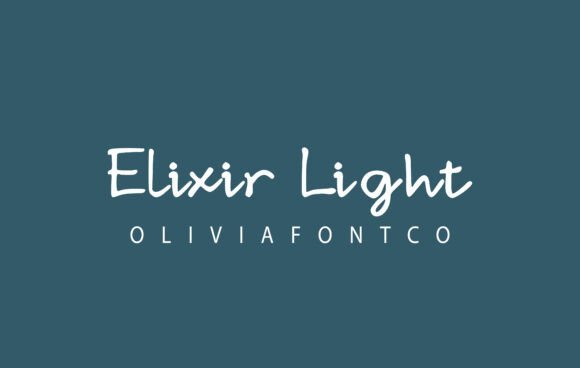
The Perfect Brushstroke: Unlocking Creativity with Elixir Light Font
Have you ever been brainstorming a new project and suddenly a spark of inspiration strikes, and you know exactly the font to bring your vision to life? For many designers, that moment is the key to unlocking a truly exceptional design. And for those who crave that perfect handwritten touch, Elixir Light Font is about to become your new best friend.
This authentic handwritten font is expertly designed to add a romantic touch to your creative endeavors. Whether you’re crafting magazine headlines, social media posts, or branding materials, Elixir Light Font is the perfect choice. Its legibility and versatility make it a valuable asset for designers who want to elevate their work and connect with their audience on a deeper level.
Elixir Light Font Key Features
- Unique Characteristics: Elixir Light Font features a modern, elegant design with a unique blend of geometric and organic elements, making it perfect for creating visually appealing and sophisticated designs.
- Font Style: The font is designed in a light style, ideal for creating clean, minimalist, and modern designs, while still maintaining a level of sophistication and elegance.
- Scalability: The font is designed to be highly scalable, ensuring that it looks great in various sizes, from small text to large headings, without losing its clarity and legibility.
Elixir Light Font Review
Overall, I found “Elixir Light” to be a beautiful, elegant font with a lot of potential. ✨ Here are some of its strengths:
- Soft, delicate lines that add a touch of sophistication to any design
- Excellent for use in logo design, packaging, and other applications where a light, airy feel is desired
- Works well in digital and print media, making it a versatile choice for designers
However, I did encounter some limitations that may impact its usability. ⚠️ These include:
- Lack of bold weight options, which may make it difficult to use for titles or headings that need more emphasis
- May not be as readable at very small sizes, requiring designers to be mindful of font sizes and scaling
- Not as widely supported as some other fonts, which could lead to compatibility issues in certain situations
Overall, I would recommend “Elixir Light” to designers looking for a beautiful, elegant font for specific applications. While it may not be the best choice for every project, its strengths make it a valuable addition to any design library.
Elixir Light Font is ideal for:
- Editorial and publishing designs
- Event and party invitations
Alternatives to Elixir Light Font
Lato Light Font
Lato Light Font is a clean and modern sans-serif font. It is ideal for use in headings, titles, and body text where a light and airy feel is desired. Lato Light Font is more condensed than Elixir Light Font, making it suitable for shorter paragraphs and titles. It also has a slightly more rounded feel, giving it a softer appearance.
Montserrat Light Font
Montserrat Light Font is a geometric sans-serif font that is perfect for use in modern and minimalist designs. It has a more angular feel than Elixir Light Font, making it suitable for use in titles and headings where a bold and edgy feel is desired. Montserrat Light Font is also more versatile and can be used in a wide range of applications, from body text to display text.
The recommended font size for optimal readability with Elixir Light Font is between 12pt and 14pt. However, this may vary depending on the specific application, display device, and intended audience. Experiment with different font sizes to find the most legible setting for your needs.
Q: Is Elixir Light Font compatible with right-to-left (RTL) languages?
Yes, Elixir Light Font includes full support for right-to-left languages, including Arabic, Hebrew, and others. The font is designed to display correctly in both left-to-right and right-to-left text flows.